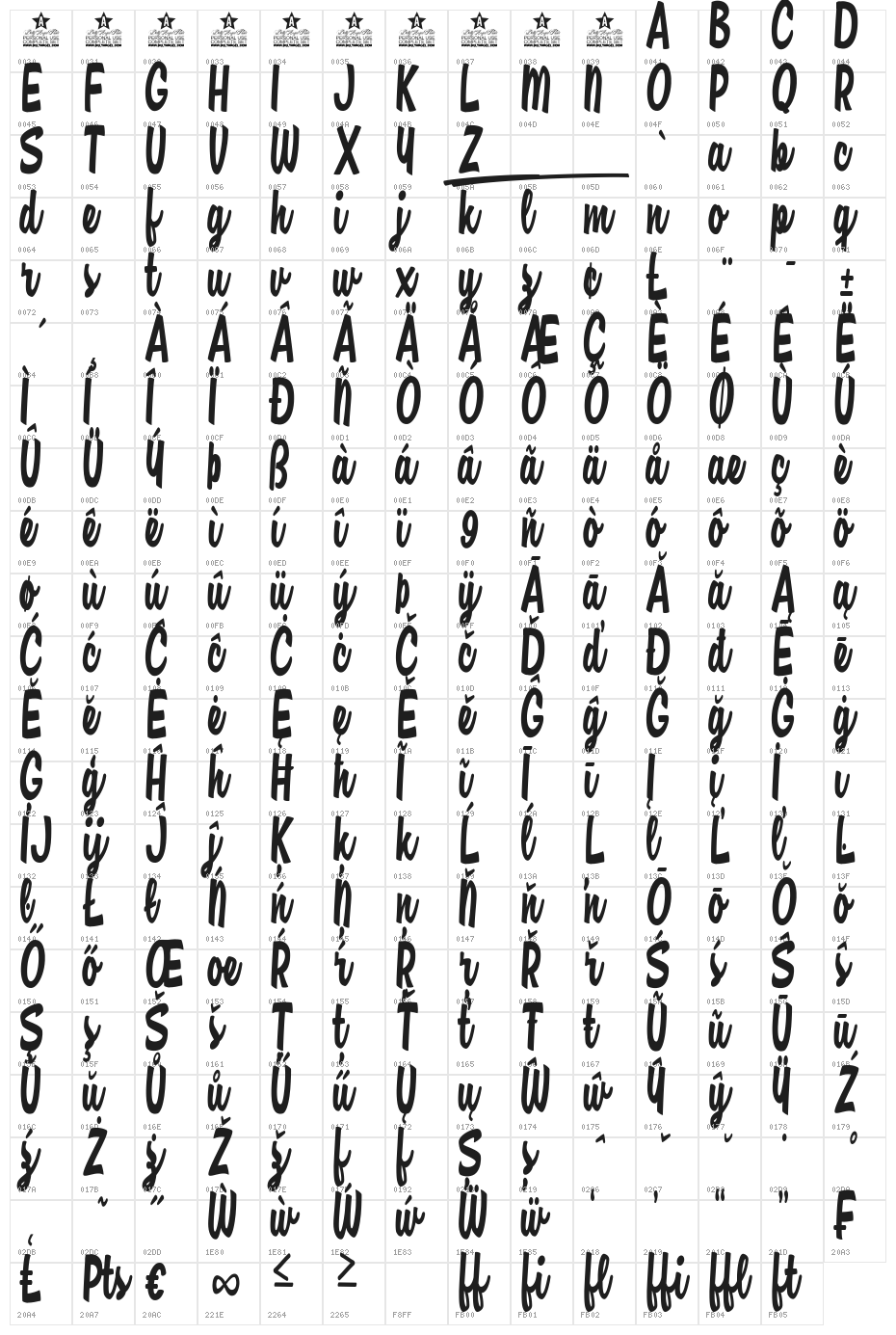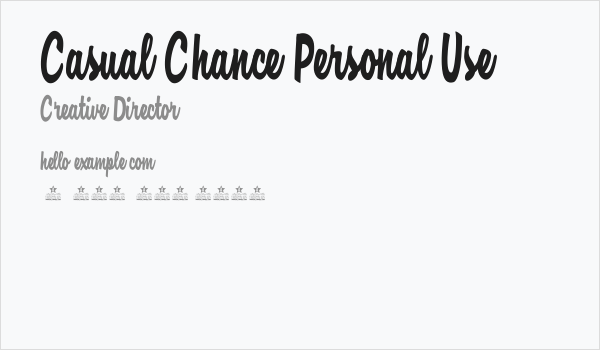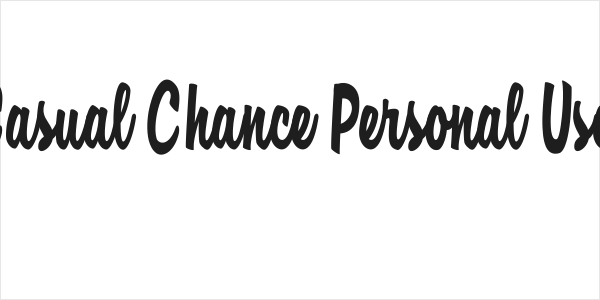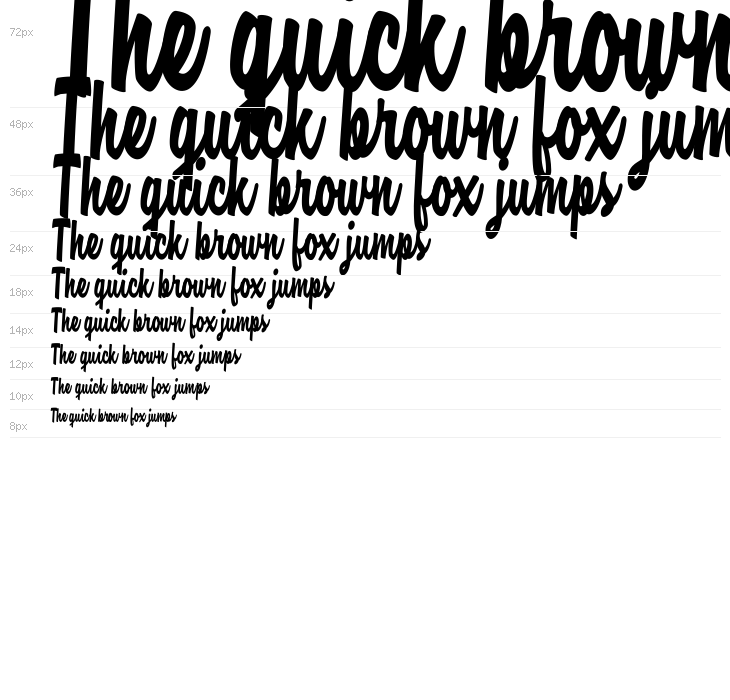
Casual Chance Personal Use Font
This font features a playful and casual style, combining elements of both script and display fonts. The uppercase letters are bold and slightly condensed, with a whimsical flair that adds a sense of fun and energy. The lowercase letters are more fluid and connected, resembling a handwritten script with smooth curves and a natural flow. The overall design is dynamic, making it suitable for projects that require a lively and informal touch. The font maintains a consistent weight throughout, providing a balanced appearance. It is ideal for creative projects where a personal and approachable feel is desired.
Overall StyleCasual, Playful
Use CaseHeadlines, Logos, Informal Text
Proposed ProjectsIdeal for greeting cards, invitations, posters, and playful branding projects.